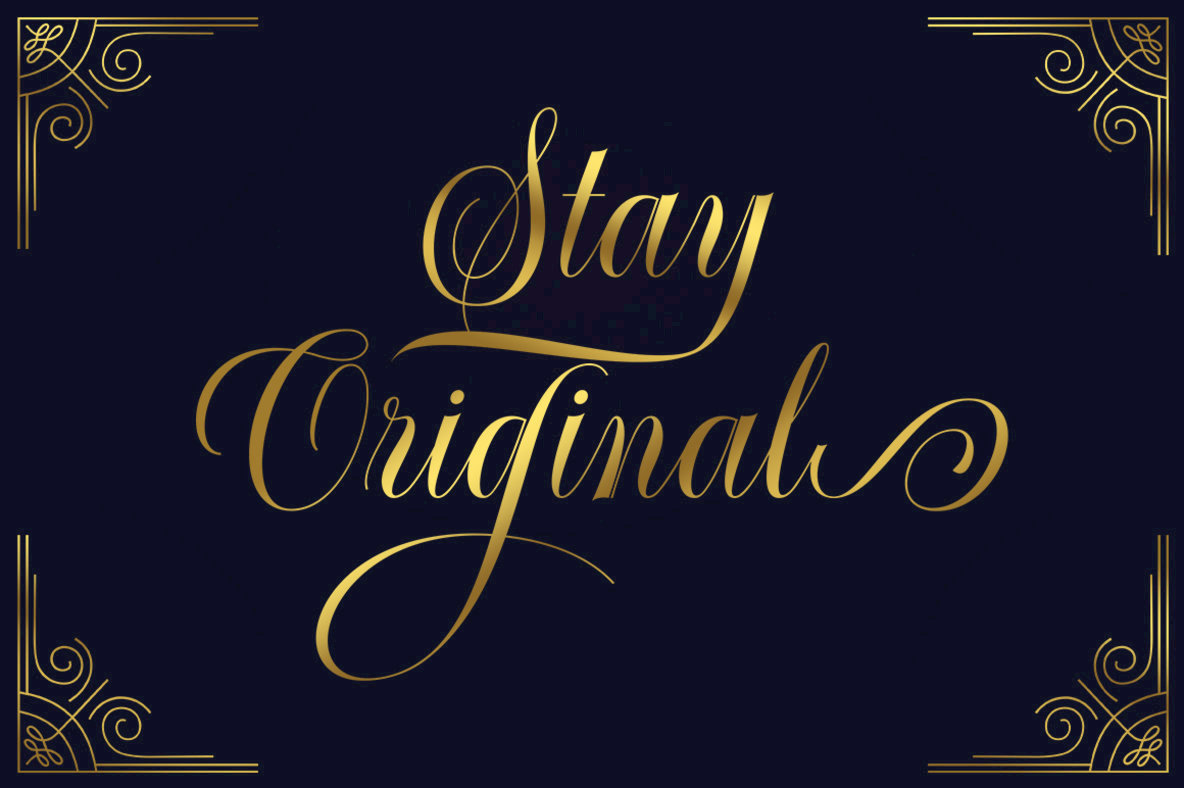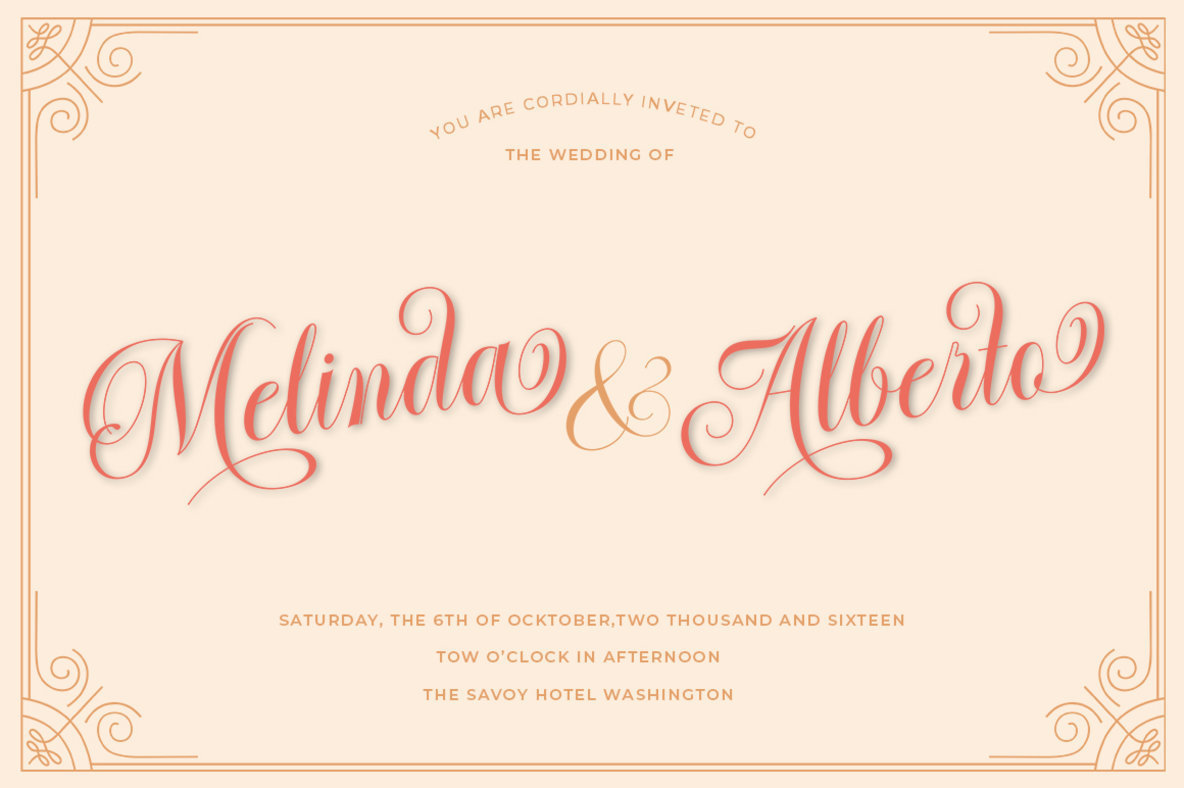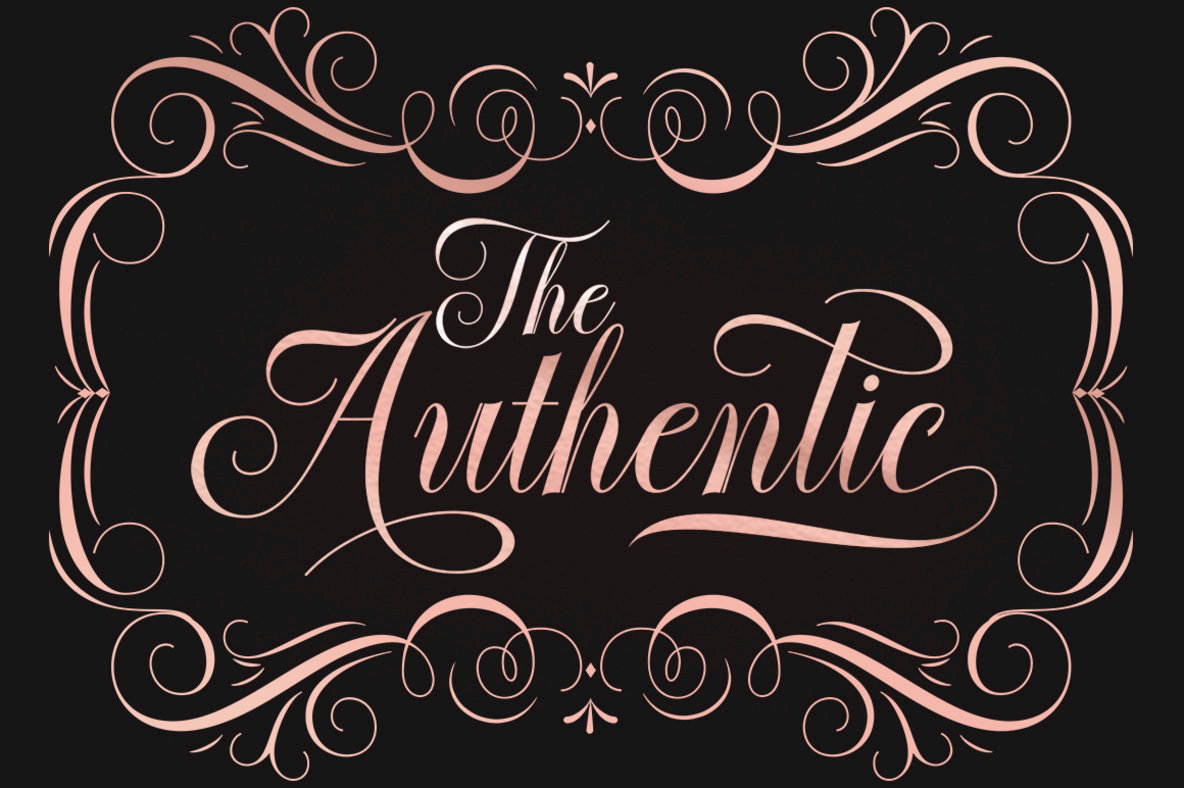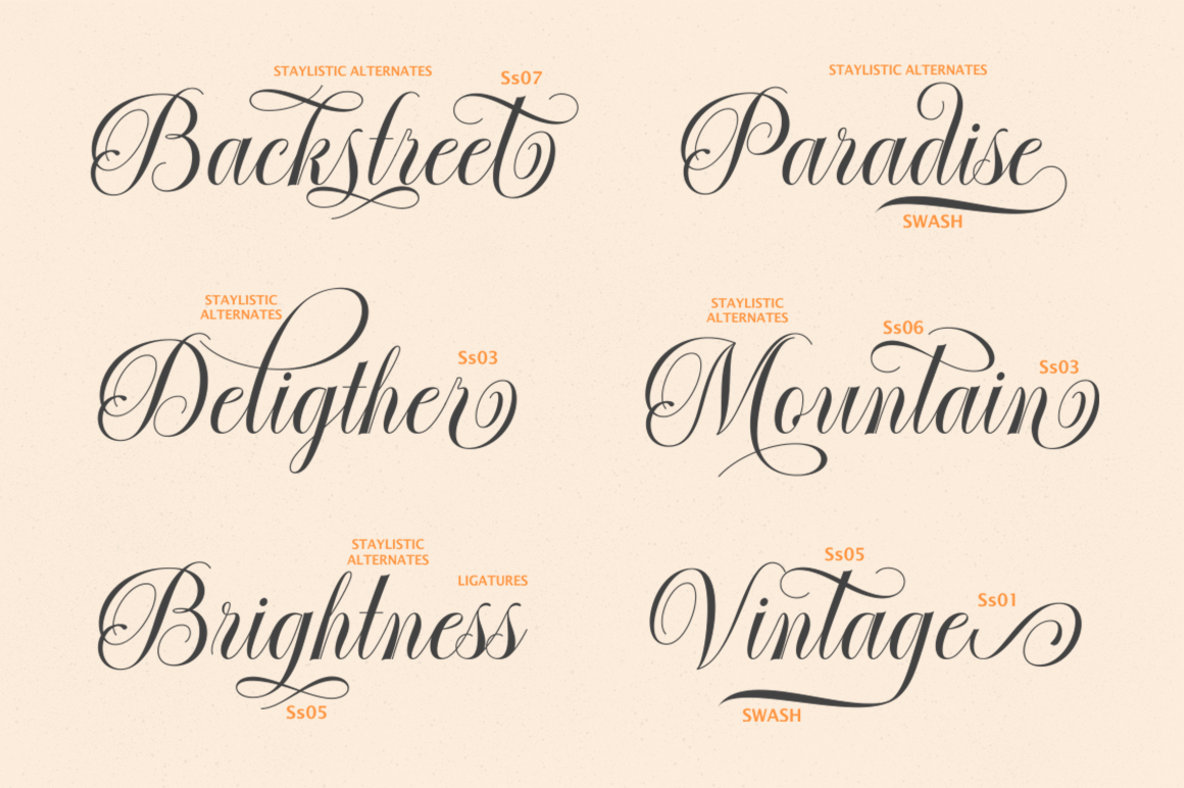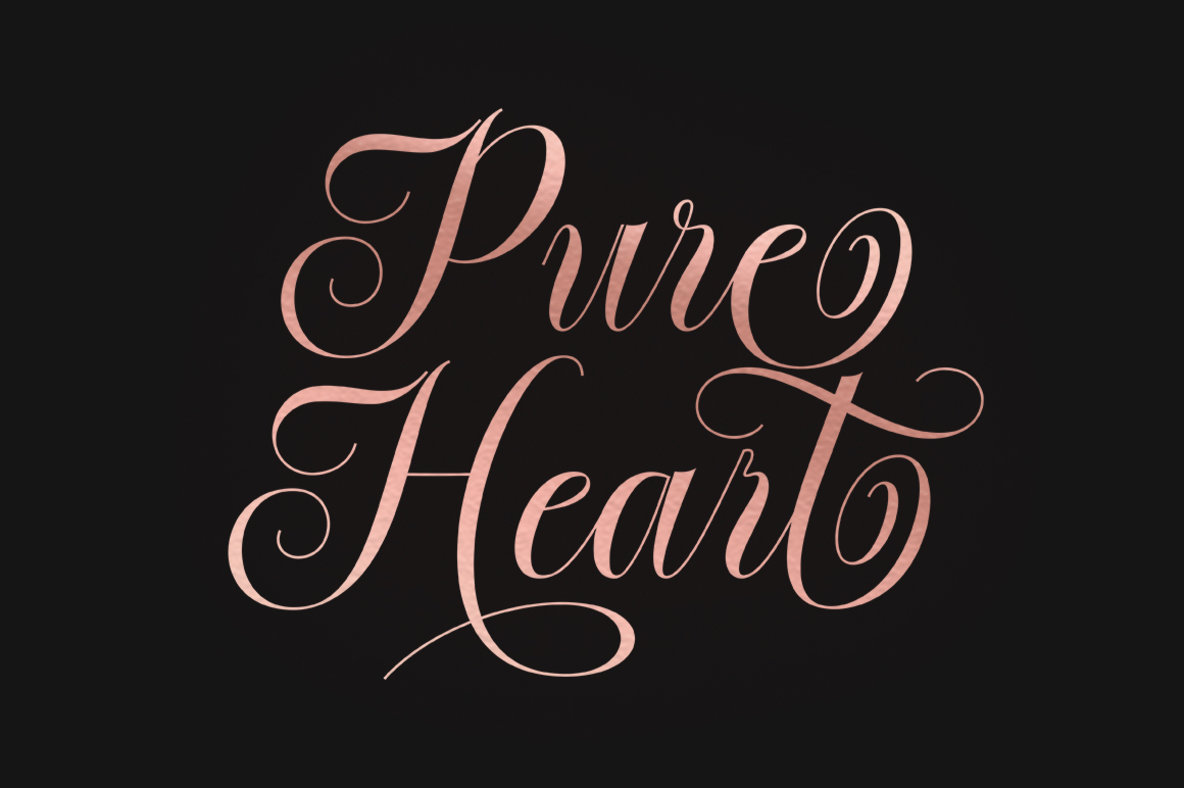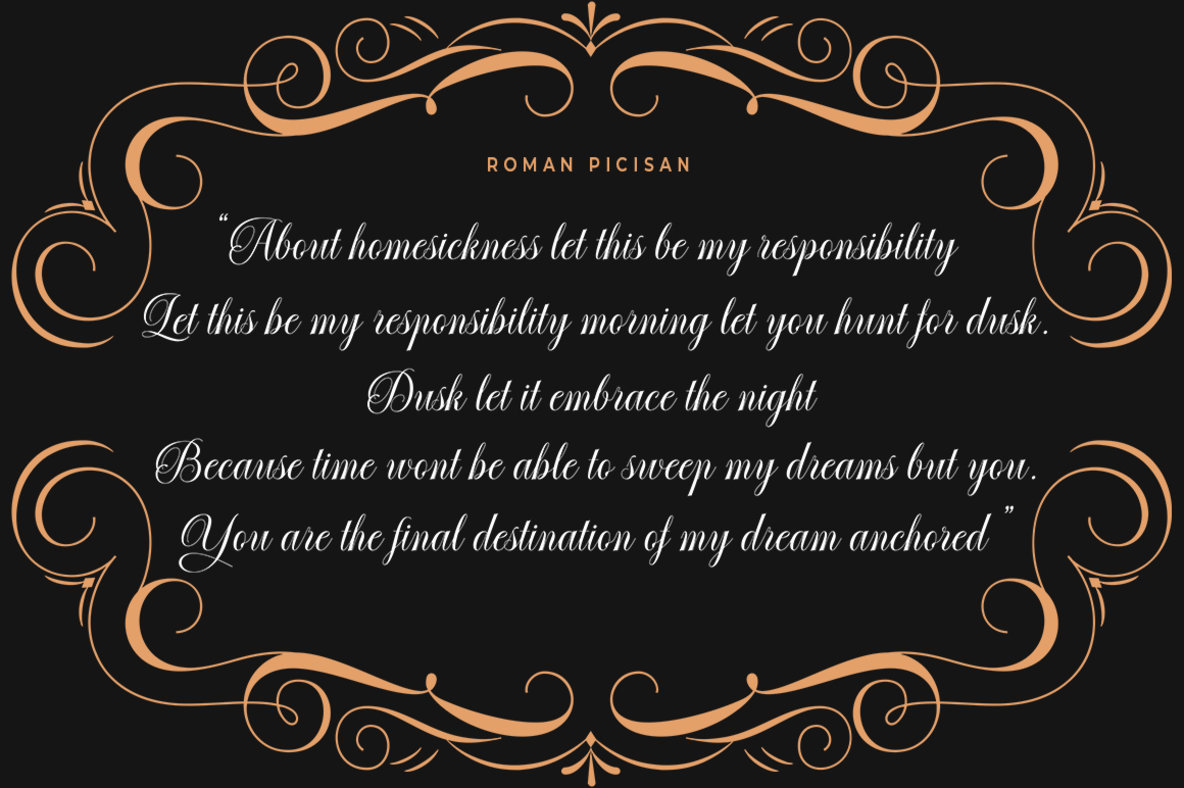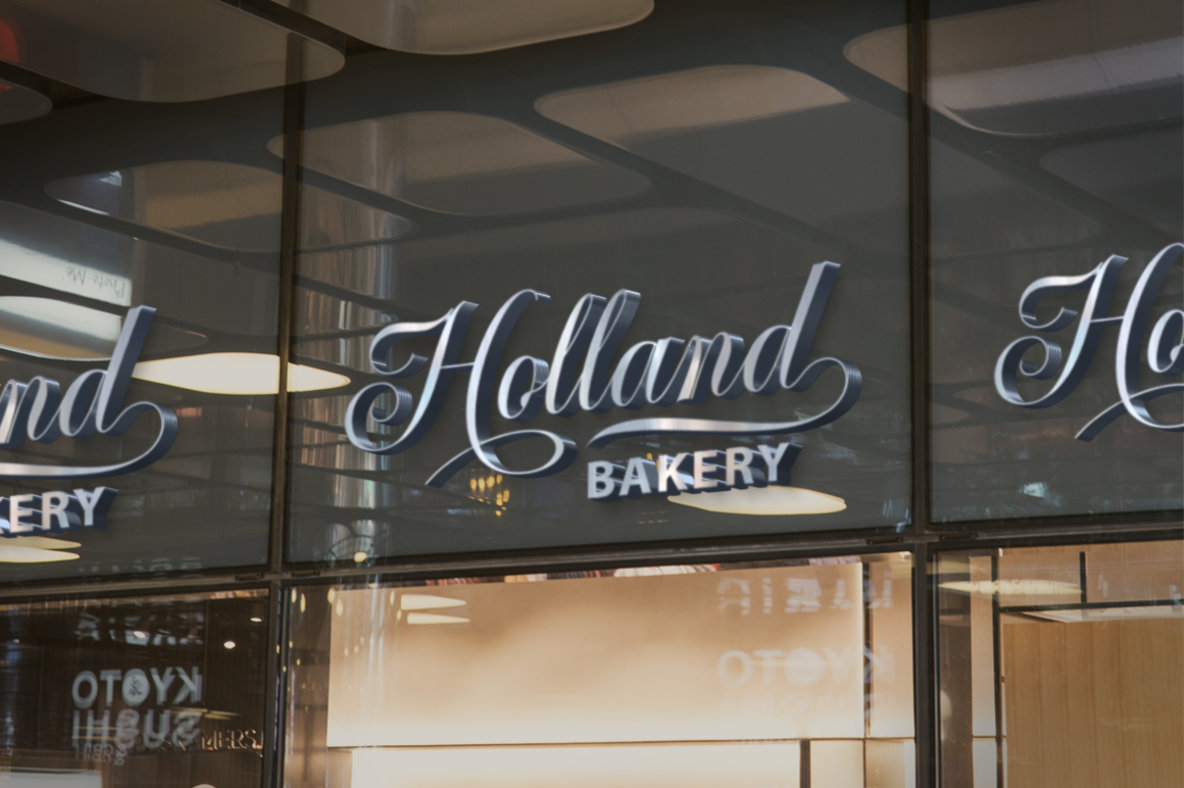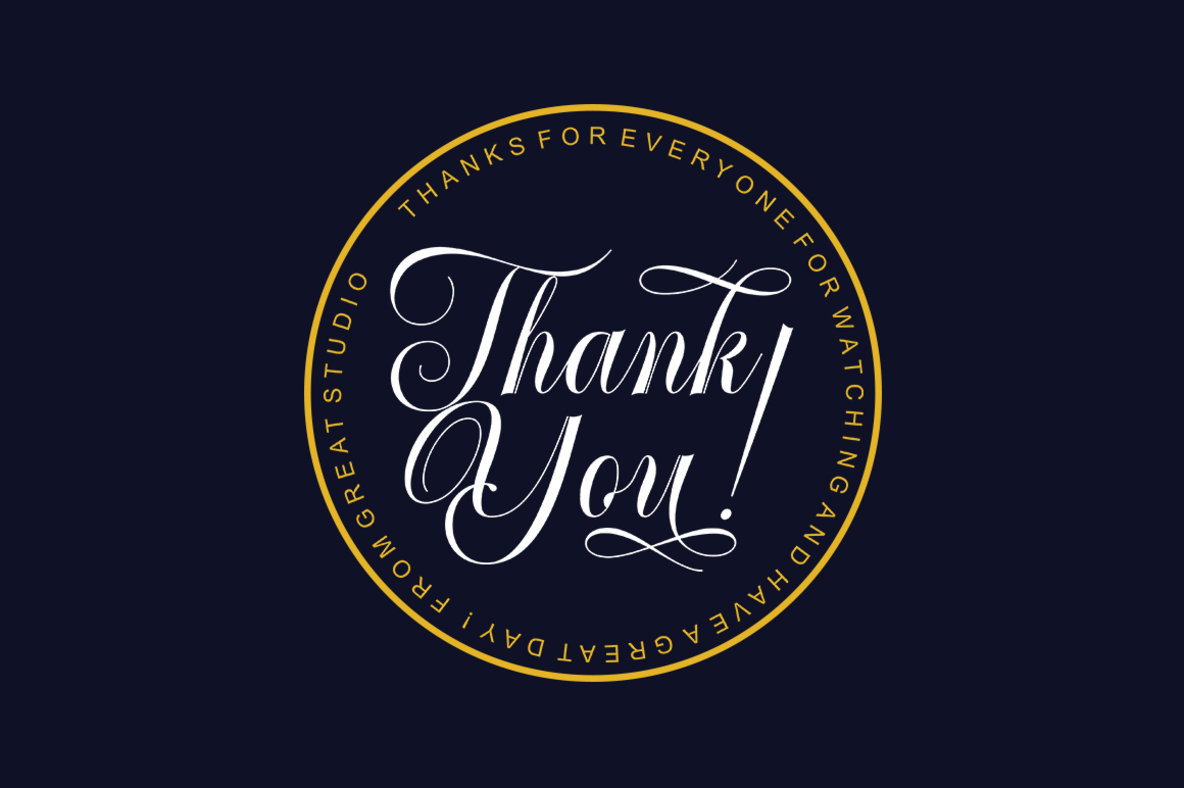
Authemart Font
Authemart Script is a calligraphy font of exceptional quality, blending modern and vintage touches that resonate with contemporary design needs. It draws inspiration from traditional copperplate calligraphy intertwined with the fluid hand-lettering style, offering a sophisticated yet approachable aesthetic. This font provides a versatile toolkit for designers, adorned with OpenType features like Stylistic Alternatives, Swash, Ligatures, and Stylistic sets, allowing seamless integration into any project. Authemart is ideally suited for adding a refined touch to formal applications such as invitations, logos, stationery, and more. Its classic charm transforms mundane into magnificent, making it indispensable for creative projects ranging from romantic novels to fashion and makeup branding.Authemart: Elegant Calligraphy Meets Modern Design